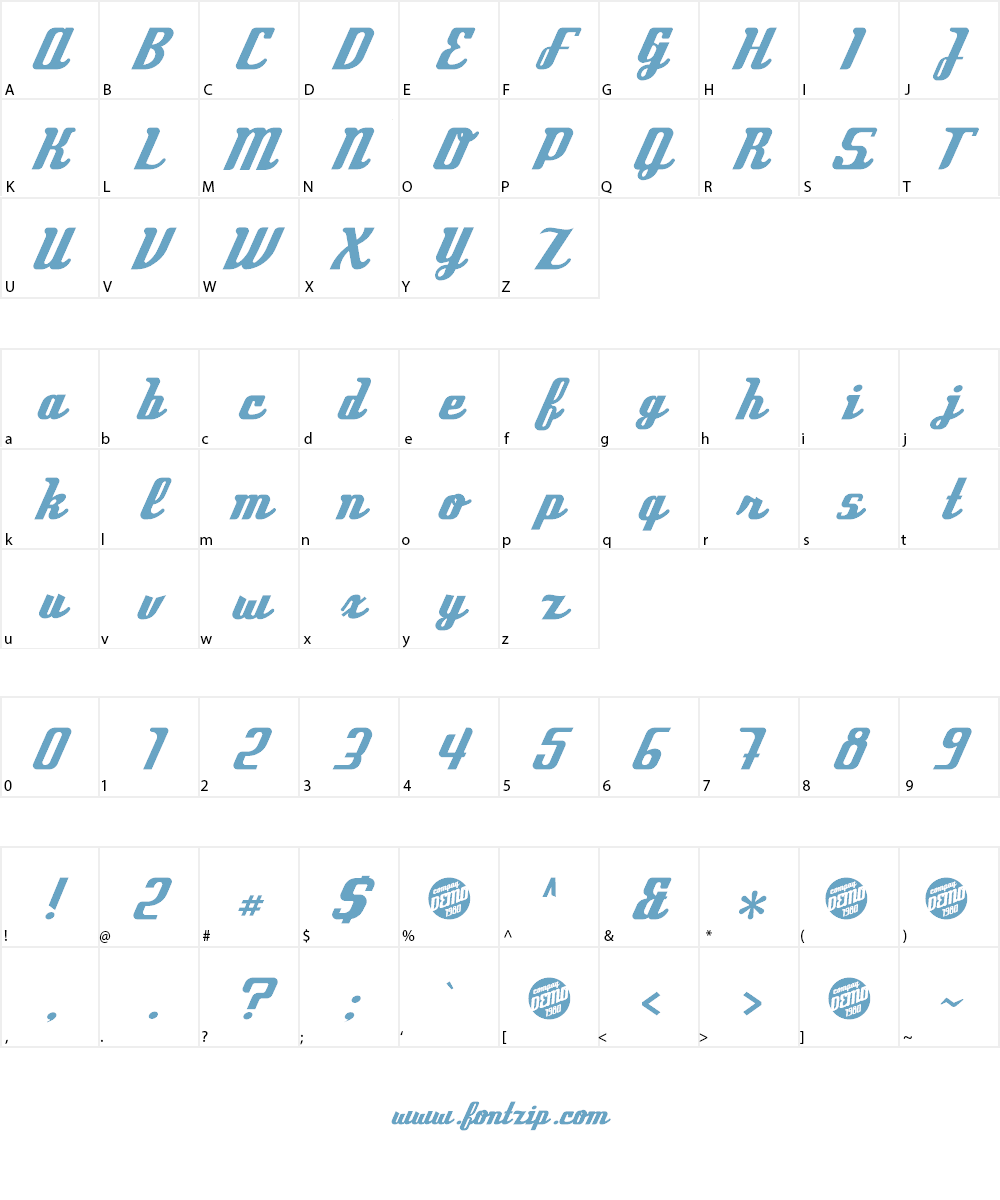
Compaq 1980 Font is an elegant script font inspired by Retro Style. It perfectly represents vintage esthetics in a modern and minimalist way.
Compaq 1980 Font suitable for any design : Branding, Logotype, Bodytext, T-shirts, Mug design, Wedding Design and any design what you want.